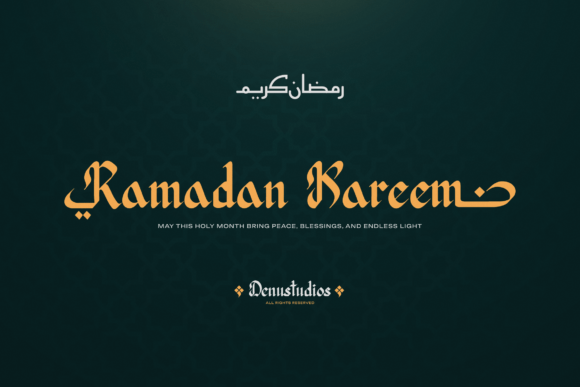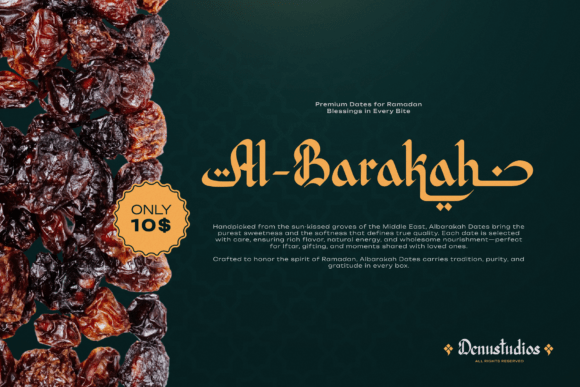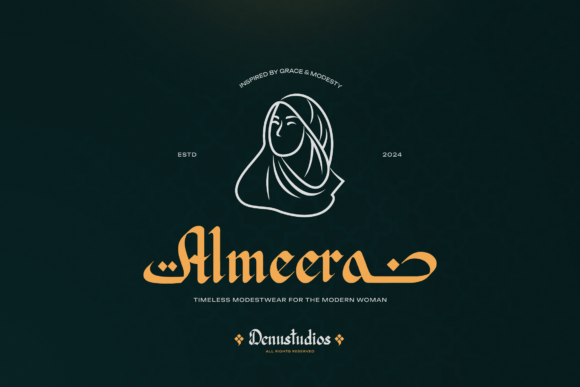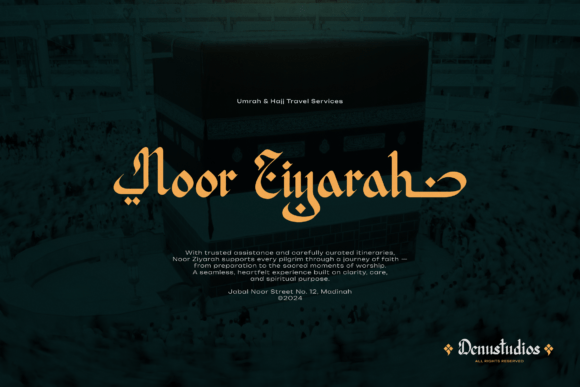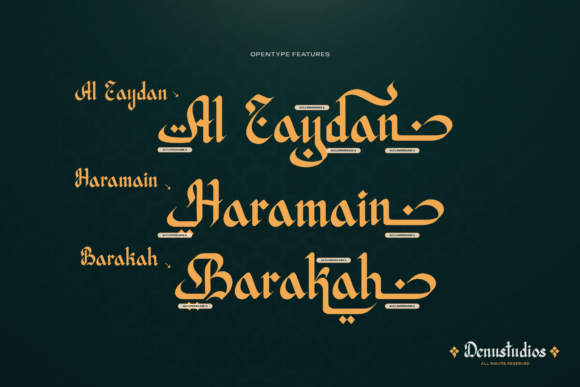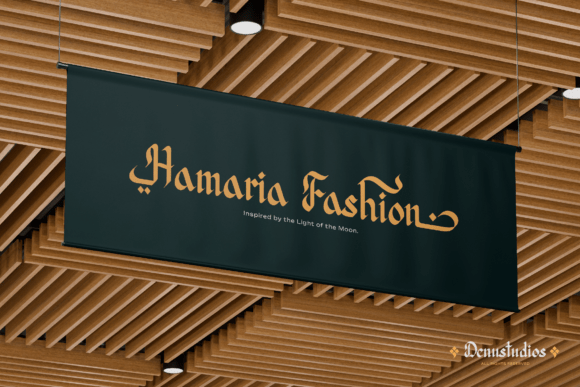
Introducing Al Biyan Font: The Perfect Arabic Typeface for Your Creative Projects
Are you a designer or crafter looking for a unique and elegant Arabic typeface to add a touch of authenticity to your projects? Look no further than Al Biyan Font, a stunning Arabic typeface designed by Denustudios. This versatile font is perfect for a wide range of projects, from logos and branding to homeware designs, product packaging, and more.
What is Al Biyan Font?
Al Biyan Font is a beautifully crafted Arabic typeface that exudes elegance and sophistication. Designed by Denustudios, a renowned design studio, this font is perfect for designers and crafters who want to add a touch of Arabic flair to their projects. With its intricate and ornate design, Al Biyan Font is sure to make your projects stand out from the crowd.
What Can I Use Al Biyan Font For?
Al Biyan Font is incredibly versatile and can be used for a wide range of projects, including:
- Logos and branding projects: Create a lasting impression with a unique and memorable logo that showcases your brand’s personality.
- Homeware designs: Add a touch of Arabic elegance to your homeware designs, from textiles to ceramics.
- Product packaging: Stand out on store shelves with eye-catching packaging that features Al Biyan Font.
- Mugs and ceramics: Create beautiful and functional items that showcase your design skills.
- Quotes and posters: Add a touch of inspiration and motivation to your quotes and posters.
- Shopping bags and labels: Create eco-friendly and stylish shopping bags and labels that feature Al Biyan Font.
- T-shirts and apparel: Design stunning t-shirts and apparel that showcase your creativity.
- Book covers and name cards: Create professional-looking book covers and name cards that feature Al Biyan Font.
- Invitation cards and greeting cards: Add a touch of elegance to your invitation cards and greeting cards.
- Photography and watermark: Use Al Biyan Font to add a touch of sophistication to your photography and watermark.
- Special events: Create stunning designs for special events, such as weddings, conferences, and more.
Why Choose Al Biyan Font?
So, why choose Al Biyan Font for your projects? Here are just a few reasons:
- Unique and elegant design: Al Biyan Font features a unique and elegant design that is sure to make your projects stand out.
- Versatile: This font is incredibly versatile and can be used for a wide range of projects.
- High-quality: Al Biyan Font is a high-quality font that is designed to deliver exceptional results.
Tips for Using Al Biyan Font
Here are a few tips for using Al Biyan Font in your projects:
- Experiment with different sizes and colors: Al Biyan Font looks great in a variety of sizes and colors, so don’t be afraid to experiment.
- Pair with other fonts: This font pairs well with other fonts, so try pairing it with a sans-serif font for a modern look.
- Use for headlines and titles: Al Biyan Font is perfect for headlines and titles, so use it to add a touch of elegance to your designs.
In conclusion, Al Biyan Font is a stunning Arabic typeface that is perfect for designers and crafters who want to add a touch of authenticity to their projects. With its unique and elegant design, this font is sure to make your projects stand out from the crowd. Whether you’re working on a logo, branding project, or homeware design, Al Biyan Font is the perfect choice.